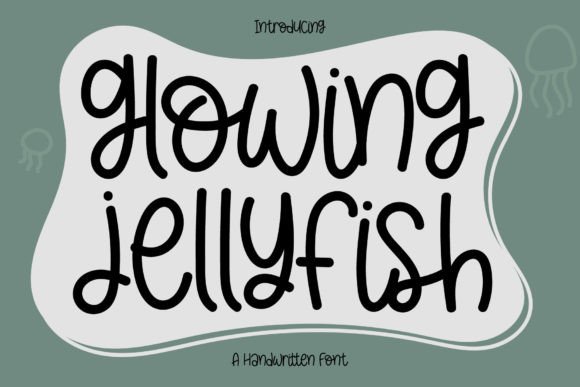
In a world brimming with ordinary scripts, embark on an extraordinary typographic journey with Glowing Jellyfish Font, a captivating masterpiece from the creative mind of Wanida Toffy. This enchanting script font captures the essence of playfulness and charm, transforming your designs into vibrant works of art.
Immerse yourself in the whimsical world of Glowing Jellyfish Font, meticulously crafted to evoke a sense of joy and wonder. Each letter dances across the page like a playful jellyfish, adding a touch of magic to your creations. Whether you're crafting heartfelt messages, designing eye-catching logos, or personalizing your social media presence, Glowing Jellyfish Font is your perfect companion.
Express your creativity with the boundless versatility of Glowing Jellyfish Font. Its graceful strokes and organic flow lend themselves effortlessly to a myriad of design projects, from elegant wedding invitations to whimsical children's books. Unleash your imagination and let Glowing Jellyfish Font guide you towards typographic masterpieces that captivate and inspire.
Step into the spotlight with Glowing Jellyfish Font, the ultimate choice for standout designs. Its unique charm and captivating presence ensure that your creations will shine brighter than a constellation of stars. Experience the transformative power of this extraordinary font and elevate your designs to new heights of brilliance.